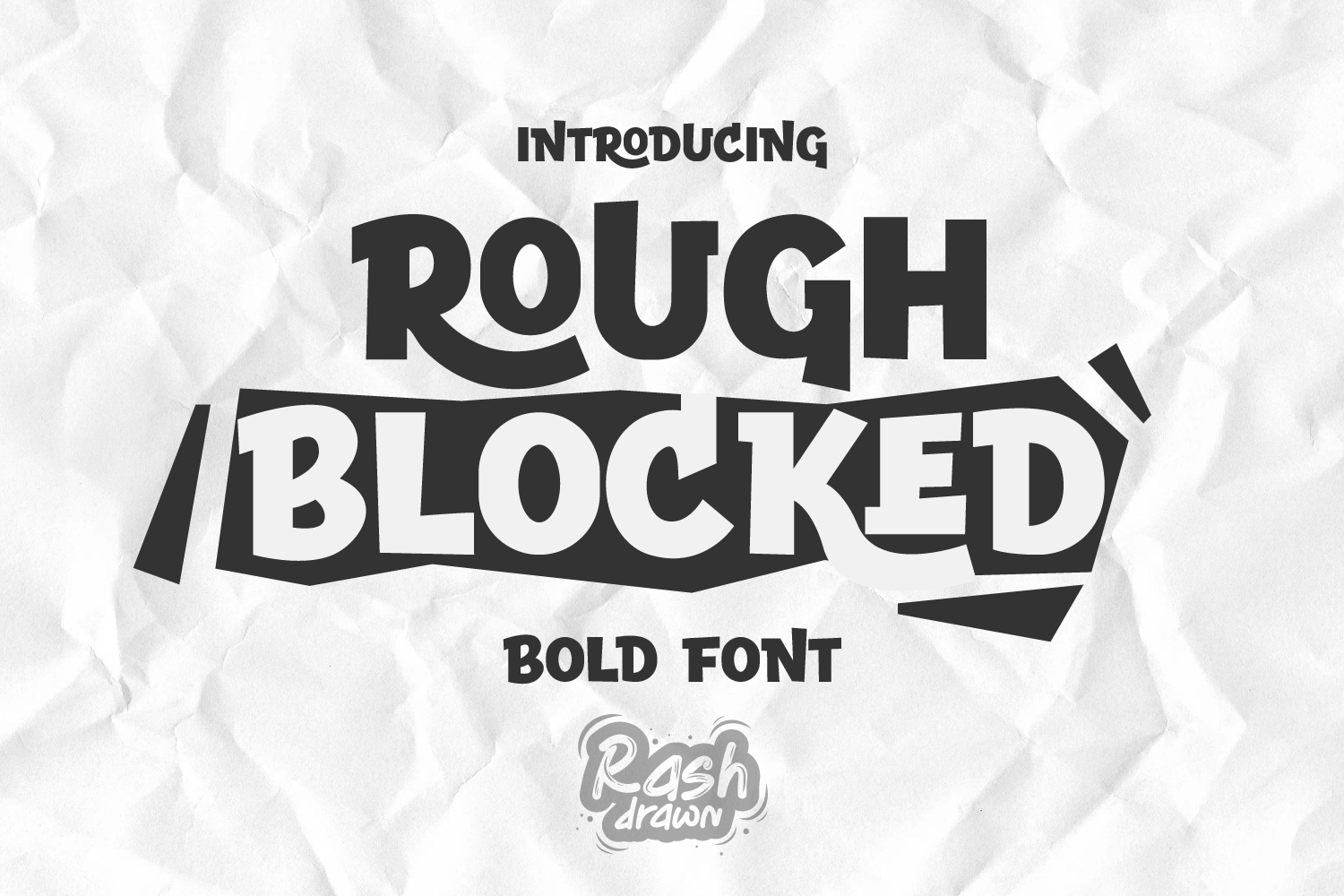
ROUGH BLOCKED -BOLD DISPLAY FONT
Introducing ROUGH BLOCKED, a high-impact display font designed for those who want their message to be heard loud and clear. With its heavy, solid blocks and slightly irregular "rough" edges, this font captures the raw energy of street posters, urban culture, and modern branding.
Whether you're creating a standout t-shirt design, a powerful headline, or edgy social media graphics, ROUGH BLOCKED provides an instant professional look that commands attention. Its bold presence makes it perfect for oversized prints and high-contrast layouts.
• Rough Edge Aesthetic: Gives a natural, hand-printed feel to your typography.
Note: This font is highly versatile and works perfectly in both digital and print media. The clean yet rough silhouette ensures readability even at a distance.